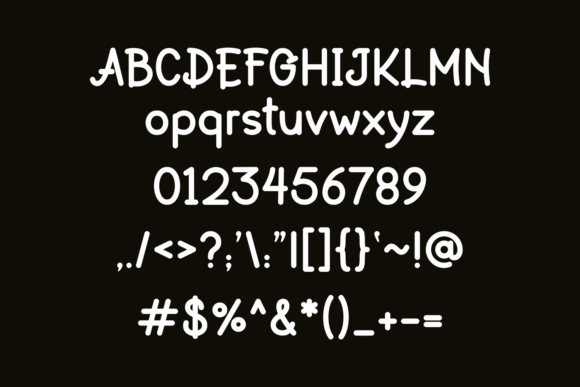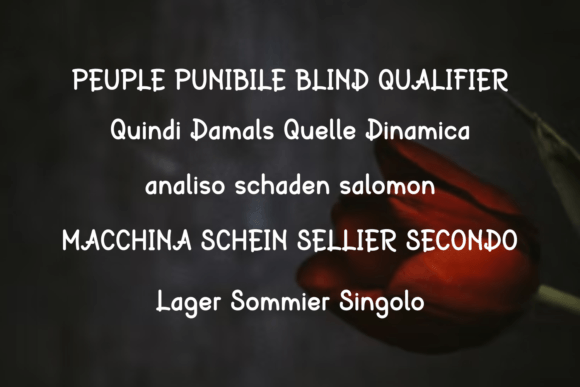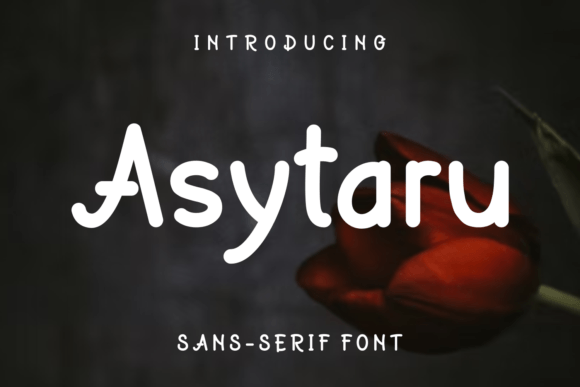
Introducing Asytaru Font: The Fun and Quirky Sans Serif Font You Need!
Are you tired of using the same old boring fonts in your designs? Look no further! Asytaru Font is here to add a joyful touch to your projects. This fun and quirky sans serif font is perfect for designers and crafters who want to add a little personality to their work. In this article, we’ll dive into the features and benefits of Asytaru Font, and explore how it can elevate your designs to the next level.
The Characteristics of Asytaru Font
Asytaru Font is a sans serif font, which means it doesn’t have the small lines or flourishes at the ends of the letters. This gives it a clean and modern look that’s perfect for a variety of design projects. But what sets Asytaru apart from other sans serif fonts is its quirky and playful personality. The letters are rounded and gentle, giving the font a friendly and approachable feel.
Asytaru Font is also highly versatile, making it suitable for a wide range of design ideas. Whether you’re working on a logo, brochure, poster, or social media graphics, Asytaru Font will look gorgeous and add a touch of whimsy to your project.
Benefits of Using Asytaru Font
So why should you choose Asytaru Font for your next project? Here are just a few benefits of using this fun and quirky font:
- Adds a joyful touch: Asytaru Font is designed to bring a smile to people’s faces. Its playful and quirky personality makes it perfect for designs that need a little extra fun and personality.
- Highly versatile: Asytaru Font can be used for a wide range of design projects, from logos and branding to social media graphics and posters.
- Easy to read: Despite its quirky personality, Asytaru Font is still highly legible and easy to read, making it perfect for body text and headlines.
- Unique and creative: Asytaru Font is a one-of-a-kind font that will help your designs stand out from the crowd.
How to Use Asytaru Font in Your Designs
Now that we’ve covered the benefits of Asytaru Font, let’s talk about how to use it in your designs. Here are a few ideas to get you started:
- Logos and branding: Asytaru Font is perfect for logos and branding projects that need a playful and quirky touch.
- Social media graphics: Use Asytaru Font to add a fun and playful touch to your social media graphics, such as Facebook posts, Instagram stories, and Twitter headers.
- Posters and flyers: Asytaru Font is a great choice for posters and flyers that need to grab people’s attention and make a lasting impression.
- Web design: Use Asytaru Font as a display font or for body text to add a touch of personality to your website.
Tips for Pairing Asytaru Font with Other Fonts
When pairing Asytaru Font with other fonts, it’s essential to choose fonts that complement its playful and quirky personality. Here are a few tips to keep in mind:
- Pair with a serif font: Pairing Asytaru Font with a serif font can create a nice contrast and add visual interest to your design.
- Choose a font with a similar feel: If you want to create a cohesive look, choose a font that has a similar feel to Asytaru Font, such as a sans serif font with a playful personality.
- Experiment with font sizes: Don’t be afraid to experiment with different font sizes to create visual hierarchy and add emphasis to your design.
In conclusion, Asytaru Font is a fun and quirky sans serif font that’s perfect for designers and crafters who want to add a little personality to their work. Its playful and gentle personality makes it suitable for a wide range of design projects, from logos and branding to social media graphics and posters. With its high versatility, ease of use, and unique creative style, Asytaru Font is sure to become a favorite in your font collection.